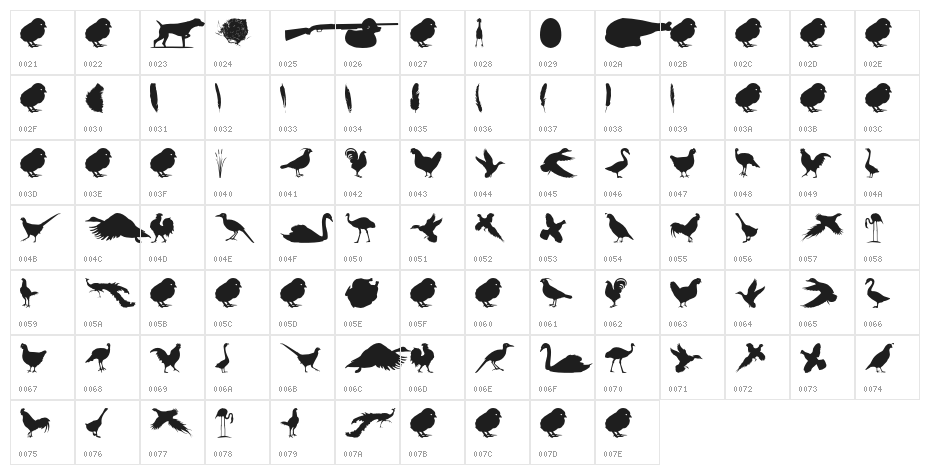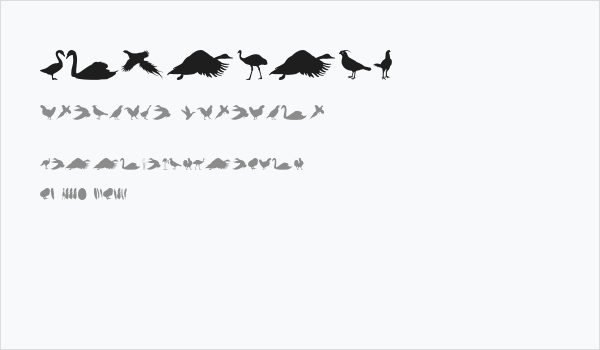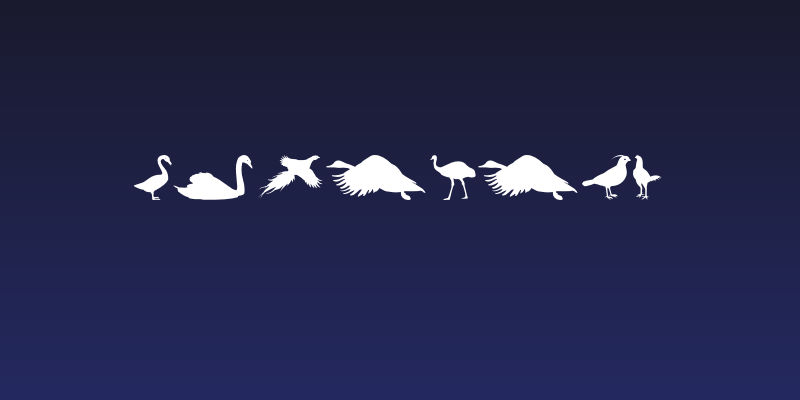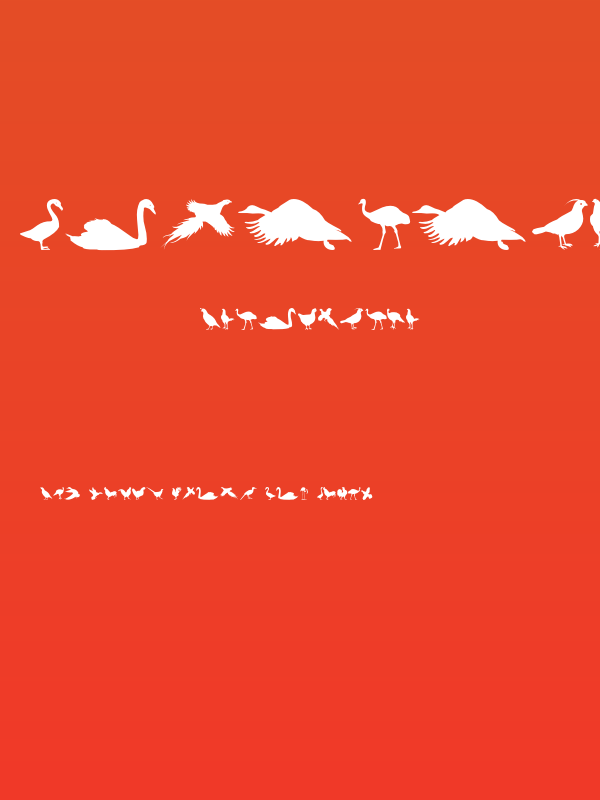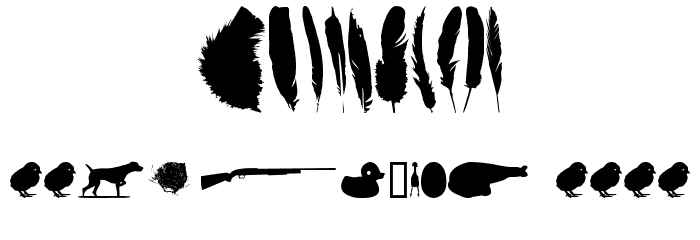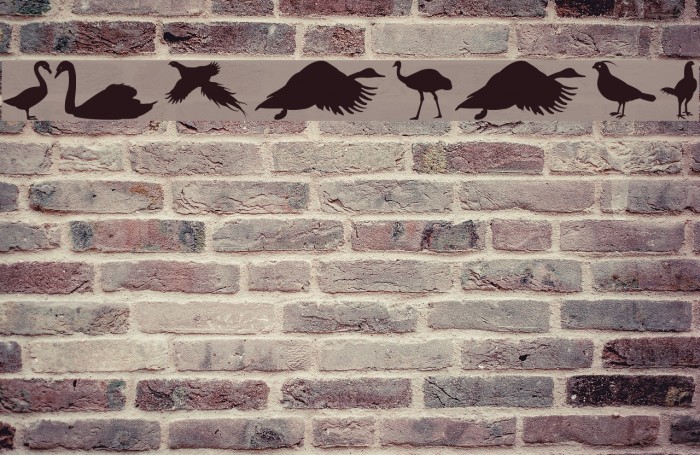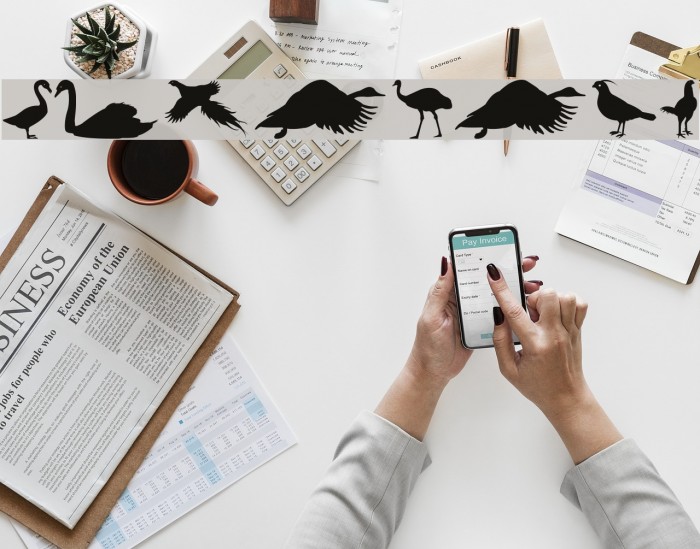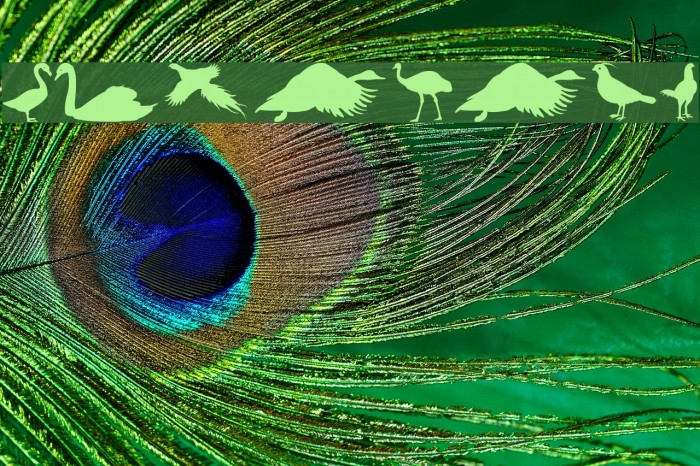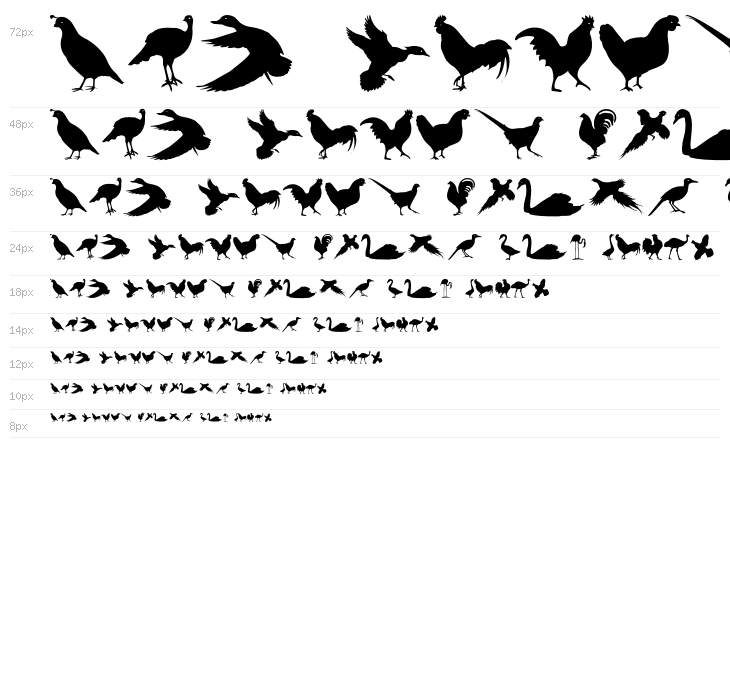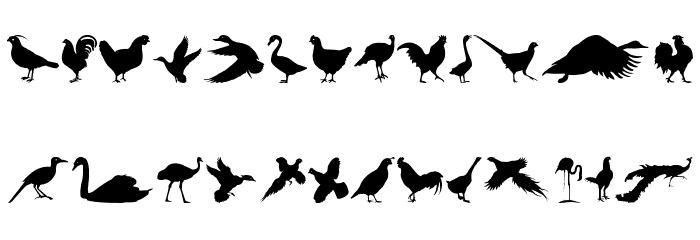
FowlPlay Font
FowlPlay Description
A decorative dingbat font featuring a variety of bird silhouettes, feathers, and related objects in solid black. Each character is represented by a unique bird or bird-related icon, with no traditional letterforms present. The style is playful and bold, with clear, recognizable shapes and high contrast.
| Overall Style | Decorative, Playful, Nature-inspired |
| Use Case | Icons, Decorative elements, Themed graphics |
| Proposed Projects | Nature-themed posters, educational materials, children’s books, wildlife branding, decorative borders. |